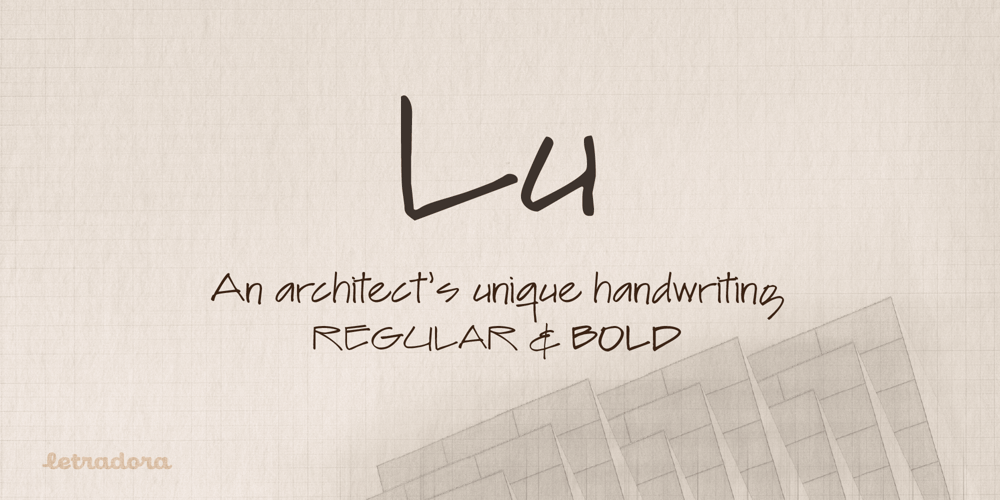
Lu Px Font Family was designed by Luis Bolaños, Kemie Guaida Ortega and published by Letradora. Lu Px contains 2 styles and family package options. Based on an architect’s handwriting, Lu has a good balance between quirkiness and legibility. With an extended character set, it is a good choice for setting short texts.